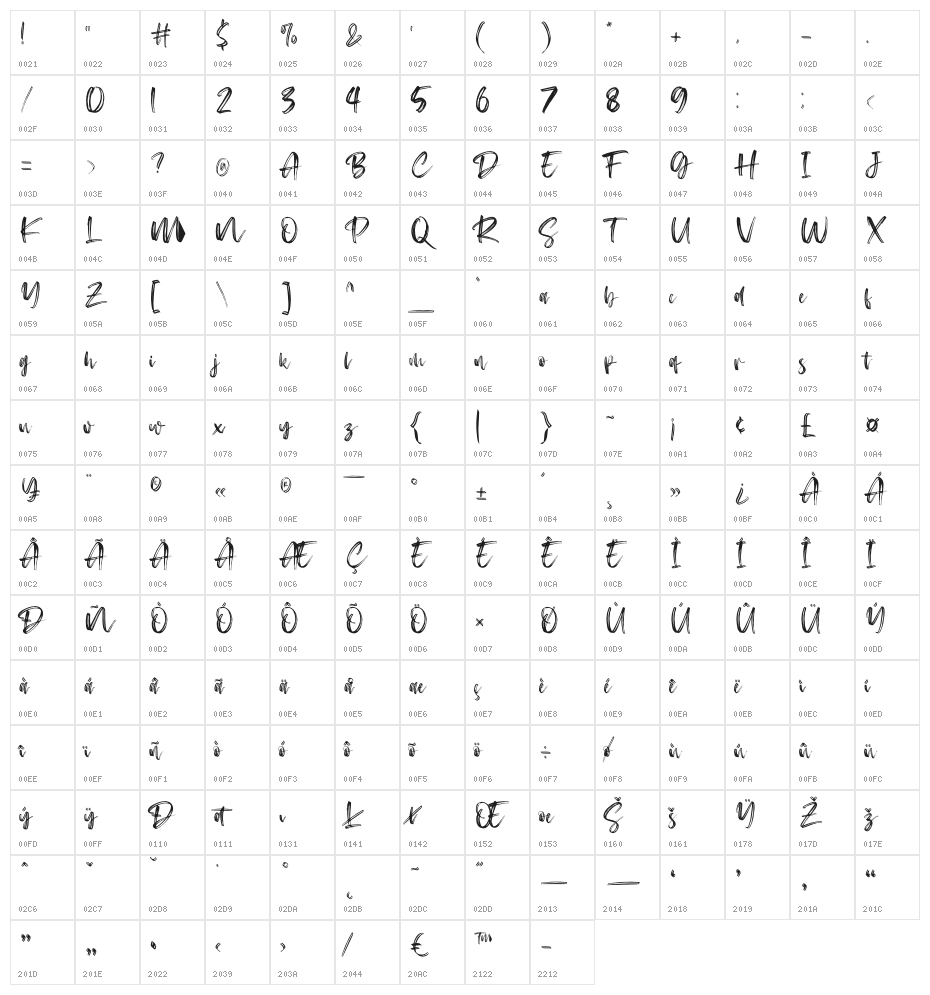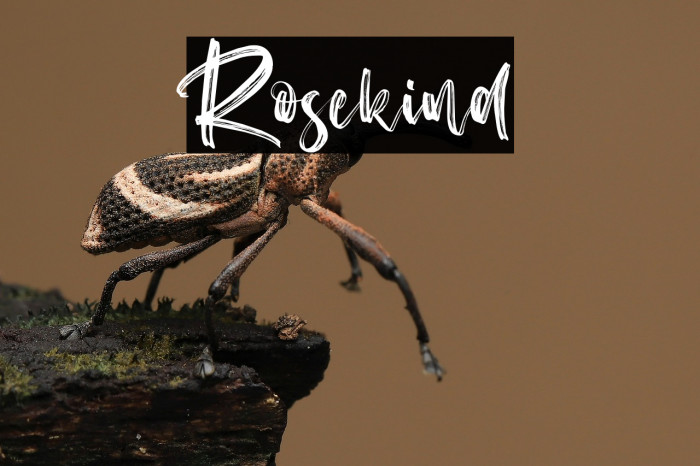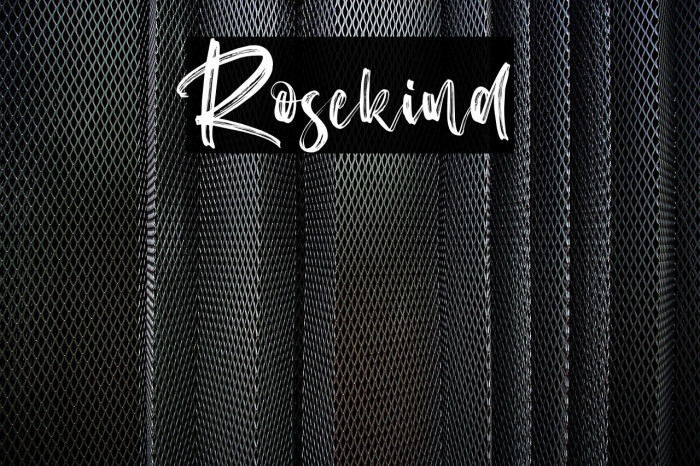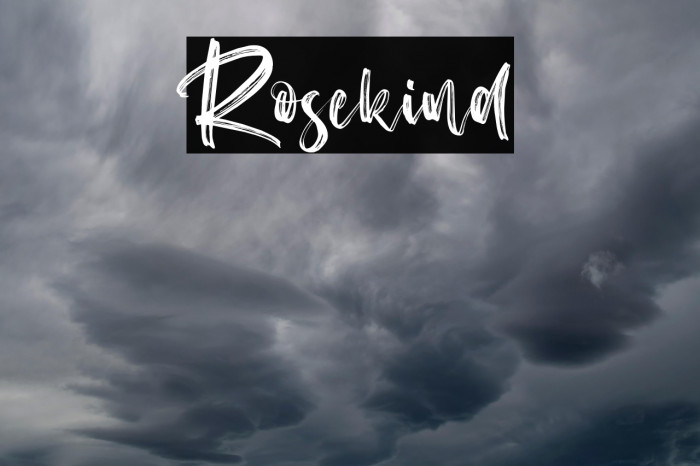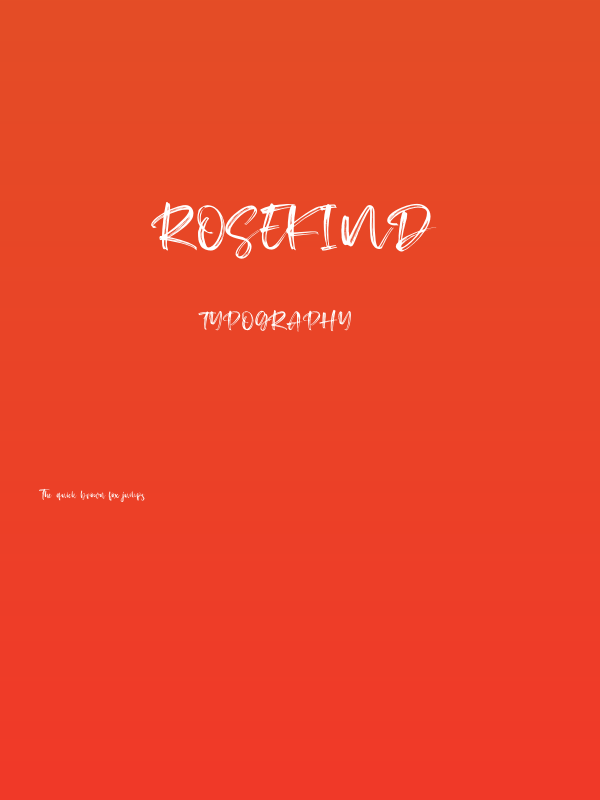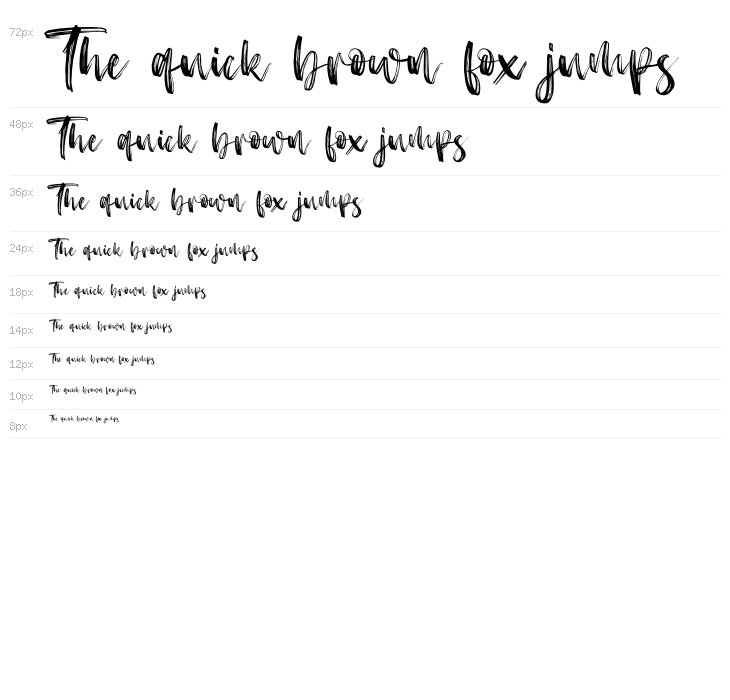
Rosekind Font
Rosekind Description
This font features a dynamic and expressive handwritten style, characterized by its bold and energetic strokes. The letters exhibit a playful and artistic flair, with varying thicknesses that create a sense of movement and spontaneity. The uppercase and lowercase letters maintain a consistent style, while the numerals and special characters blend seamlessly with the overall design. The font's unique brush-like texture adds a personal and creative touch, making it stand out in any design project.